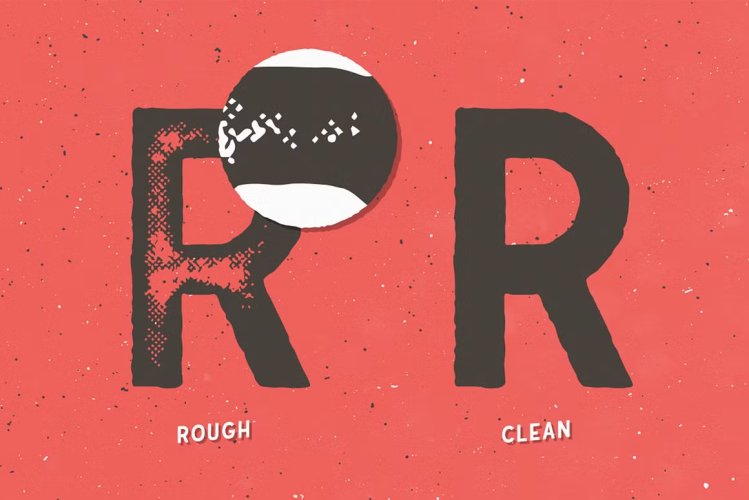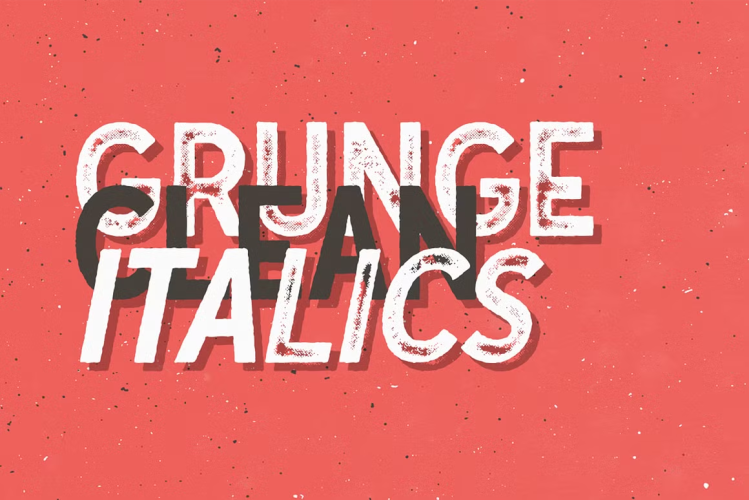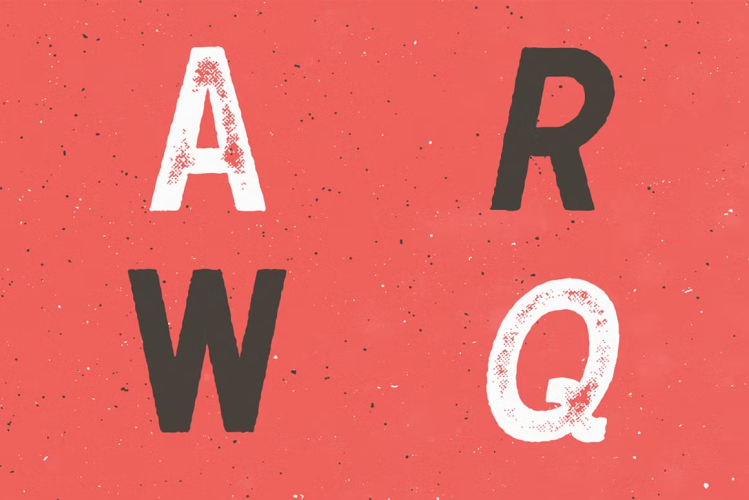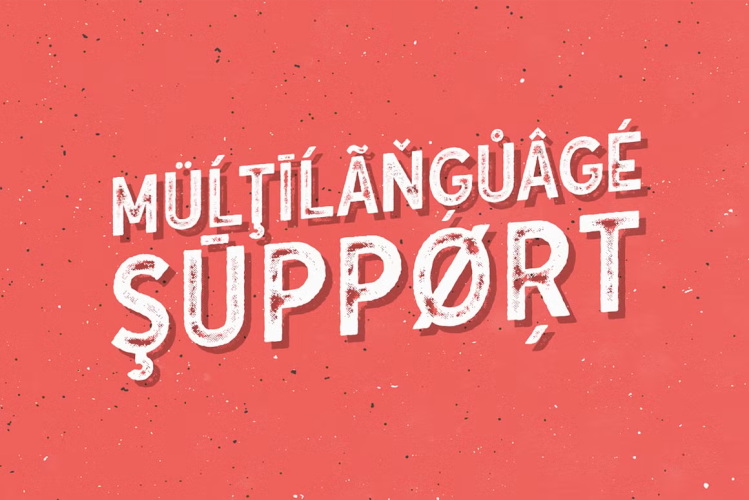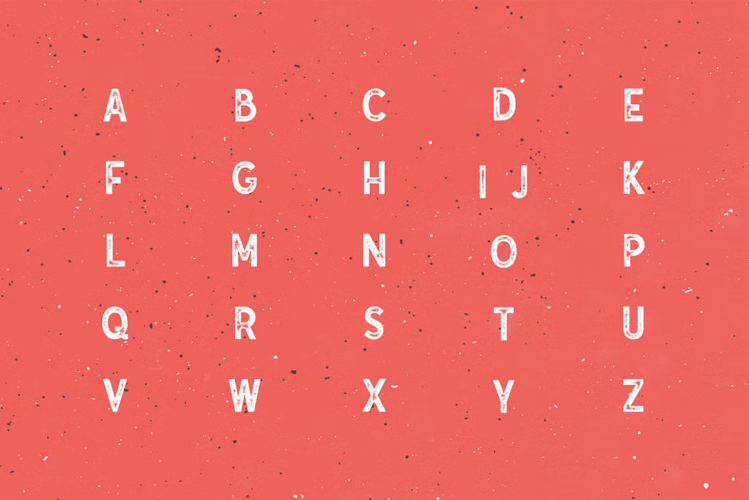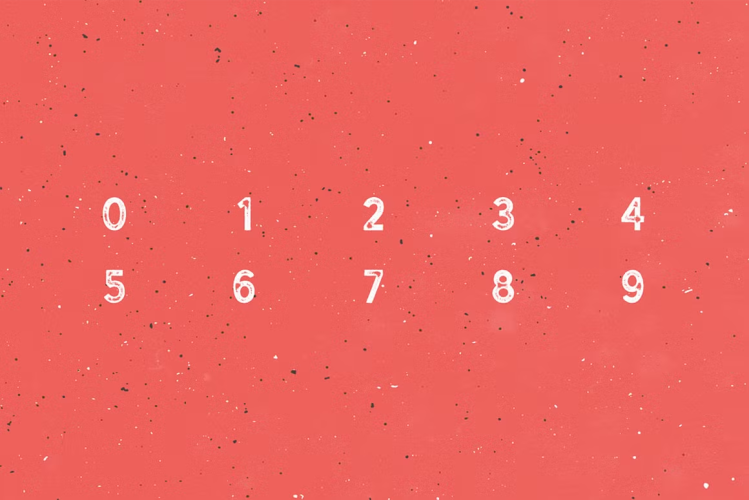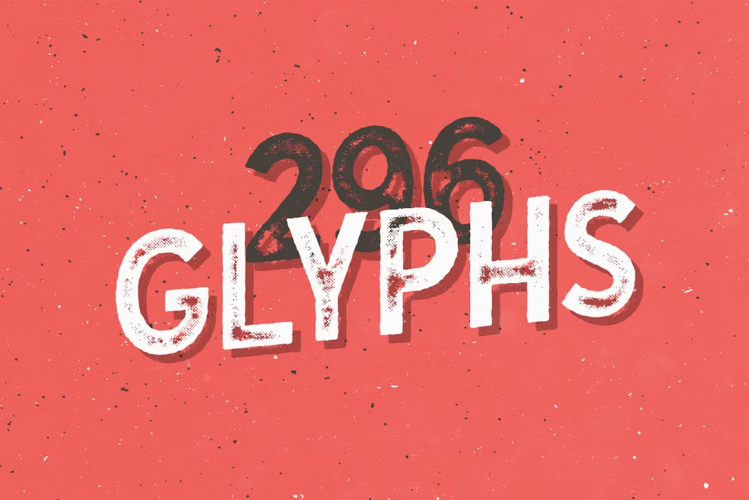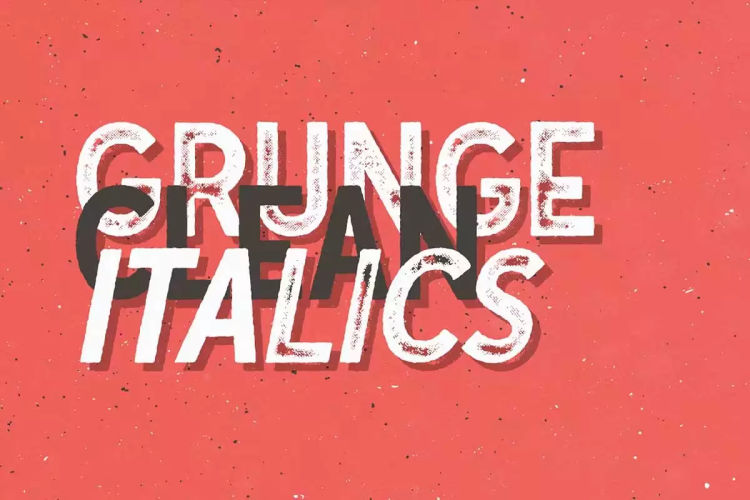
Gutenberg Font
Gutenberg is a sans serif font which presents sketchy edges with irregular scheme imperfections to simulate the transferred ink.
The Gutenberg Font pays homage to the pioneering spirit of Johannes Gutenberg, the inventor of the movable-type printing press and a pivotal figure in the history of printing and typography. Inspired by the classic typefaces of the Gutenberg Bible, this font carries a timeless elegance and a sense of historical significance.
This is a sincere tribute to Johannes Gutenberg, who introduced printing to Europe with his mechanical movable printing technique. It is undoubtedly one of the most important inventions of the second millennium.
This font family includes 296 glyphs and multi-language support. It also comprises regular rough and regular clean styles with corresponding true italics.
Gutenberg Regular
Gutenberg Regular Italic
Gutenberg Clean Regular
Gutenberg Clean Italic
Where Gutenberg Font works best
Gutenberg Font is built for size: event posters, hero headlines and billboard-style layouts.
High contrast display type like Gutenberg Font reads instantly in thumbnails and motion graphics.
What is Gutenberg Font good for?